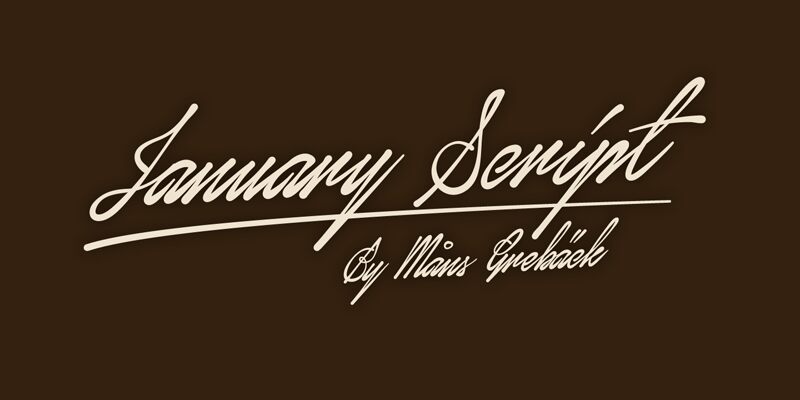
January Script by Mans Greback is a free handwritten script with the sweeping form of a highly elaborate personal signature written at speed. Tall, narrow letters lean sharply forward and connect through broad loops, long crossings, and strokes that return far below the line. Fine hairlines meet firmer downstrokes, with oversized capitals turning each name or phrase into a continuous flourish.
Its formal signature style suits high-end fashion branding and elegant perfume packaging, where extended strokes can weave through label artwork and product marks. The same signature sweep fits invitations, magazine covers, and album artwork.